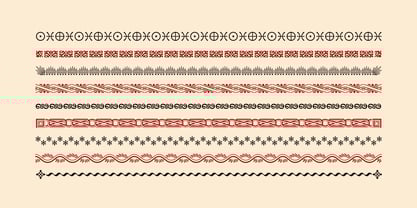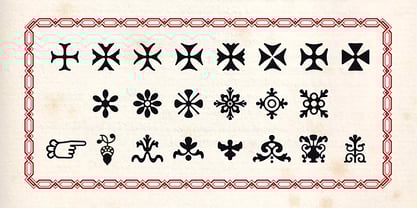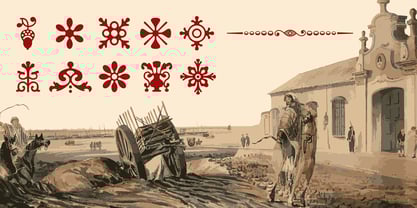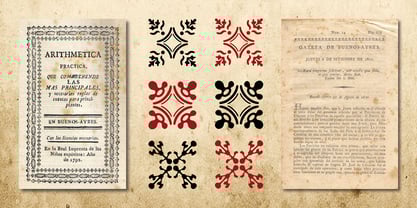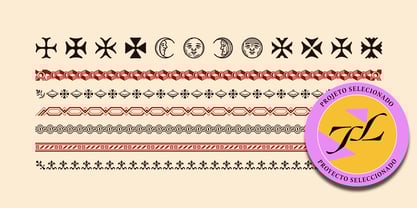
Garrigos ornamental
by Fabio Ares
The Garrigos ornamental Font Family was designed by Fabio Ares and published by Fabio Ares. Garrigos ornamental contains 1 styles. More about this family
A typographic reinterpretation of the ornaments used by the Imprenta de Niños Expósitos (Foundling Children's Printing House), between 1780 and 1824. This establishment was the first in Buenos Aires, Argentina.
It was the product of extensive historical research conducted by the author, seeking to identify the typefaces that arrived in the city during the colonial era and the early years of independence. This set presents a wide variety of designs, ranging from organic Baroque to geometric Neoclassical forms. It includes models from important European type foundries such as the Imprenta Real de Madrid, Antonio Espinosa de los Monteros, Edmund Fry, and Bell & Stephenson's. It also includes the first Argentine typeface designs: the phases of the moon executed by the carpenter and engraver Pedro Carmona. These ornaments were used to compose the first newspapers, such as El Telégrafo Mercantil and La Gazeta de Buenos Ayres, and works that were important to the revolutionary process, such as Jean-Jacques Rousseau's The Social Contract.
Its typefaces can be used in editorial design combined with Roman typefaces, either individually or in groups, to form new figures, endpapers, or frames. It was named after the first printer who worked in the aforementioned workshop: the Spaniard Agustín Garrigós. It was originally published by the Underground foundry in 2016 and later, in 2022, expanded based on new discoveries in old prints from the establishment. The font was selected for the exhibition at the 9th edition of the Latin American Biennial of Latin Types.
About Fabio Ares
Designer based in City Bell (Province of Buenos Aires, Argentina). Professor of the Typography Chair of the Faculty of Arts of the National University of La Plata and lecturer. His fonts are based on his historical research on printing and typographic uses in Argentina and used by organizations linked to heritage. Co-founder of the Historical Railway Typography project, he designs fonts based on the signs used by Argentine railways since 1857.The main objective of the works included in this foundry is that they transcend borders and be used in other latitudes as a way to vindicate Argentine visual culture. What is collected through the commercialization of the typefaces destined to finance the investigations.